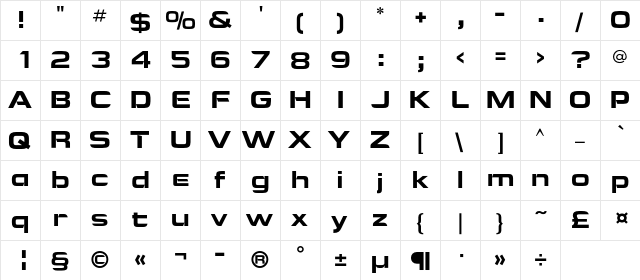
ManiaExtendedC Regular
Design Context for ManiaExtendedC Typeface
ManiaExtendedC is a composed and adaptable typeface that performs quietly and consistently across a wide range of design contexts.